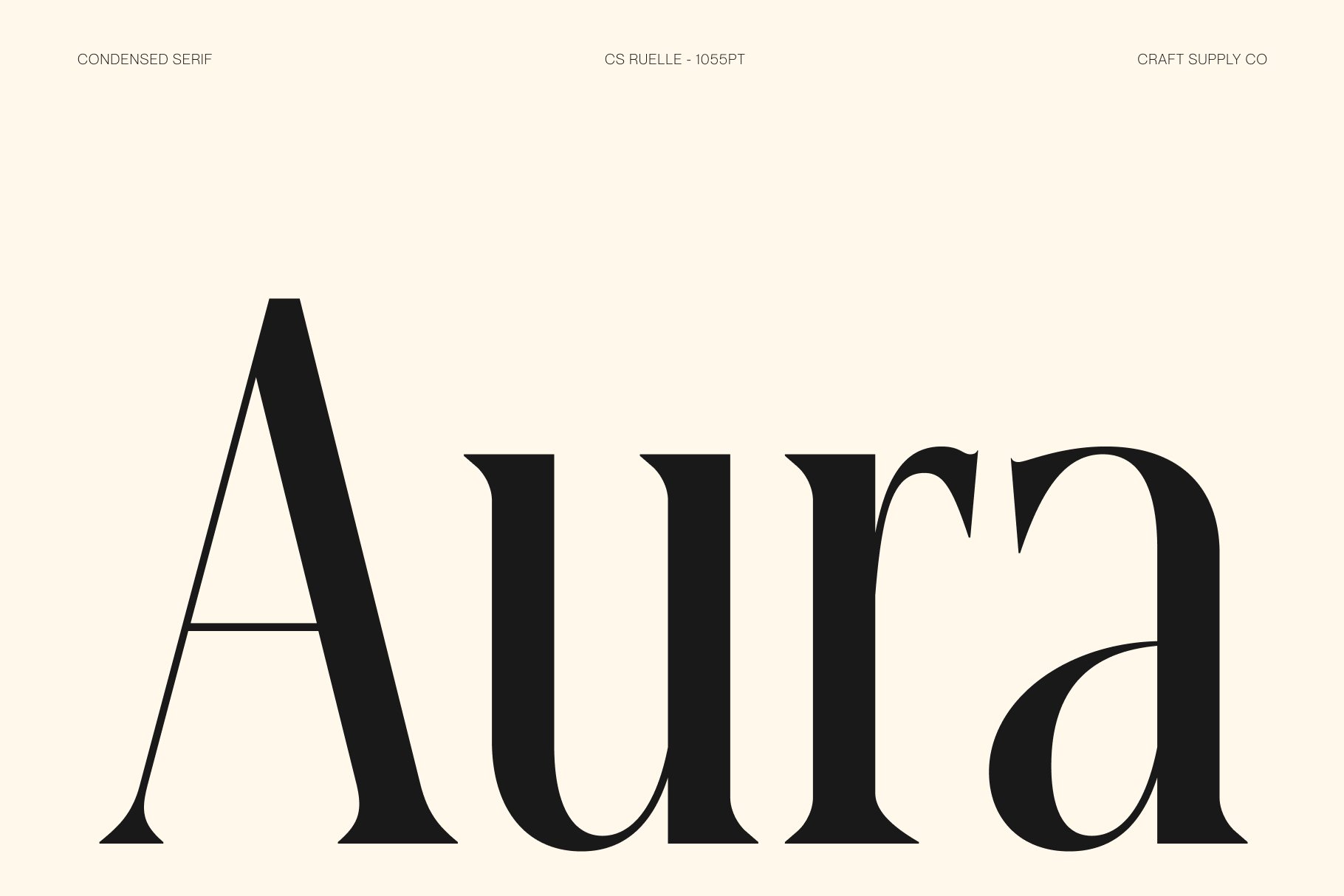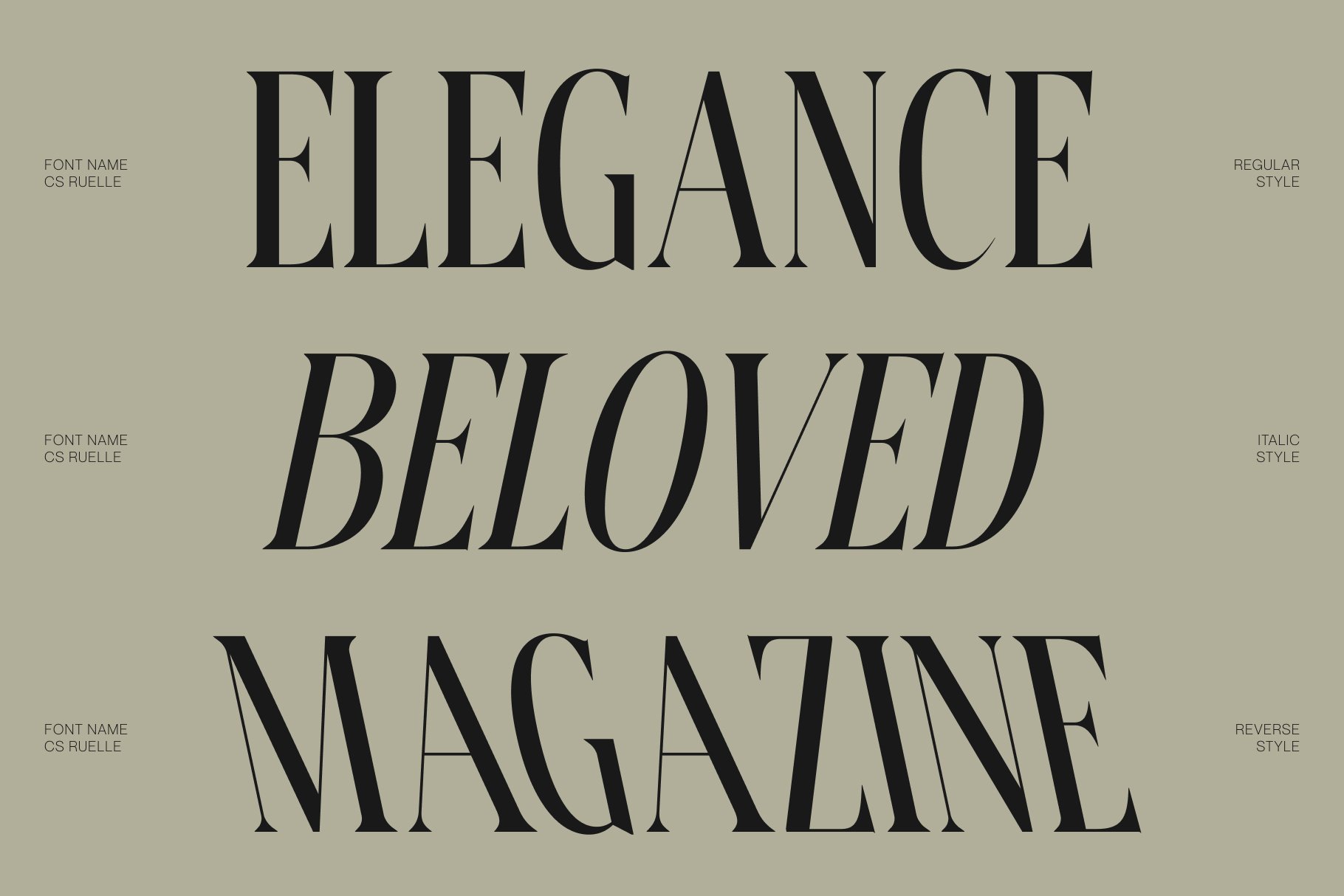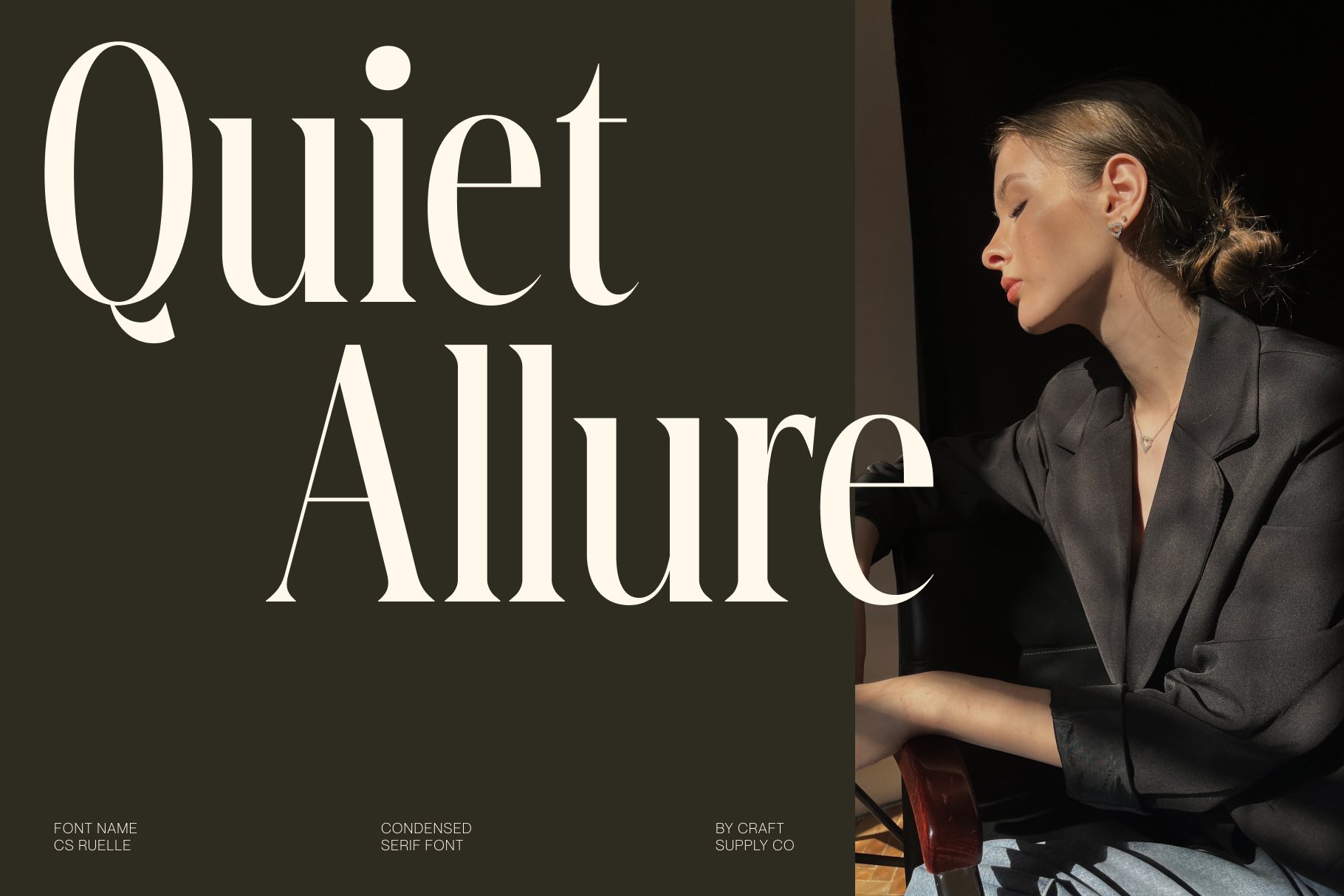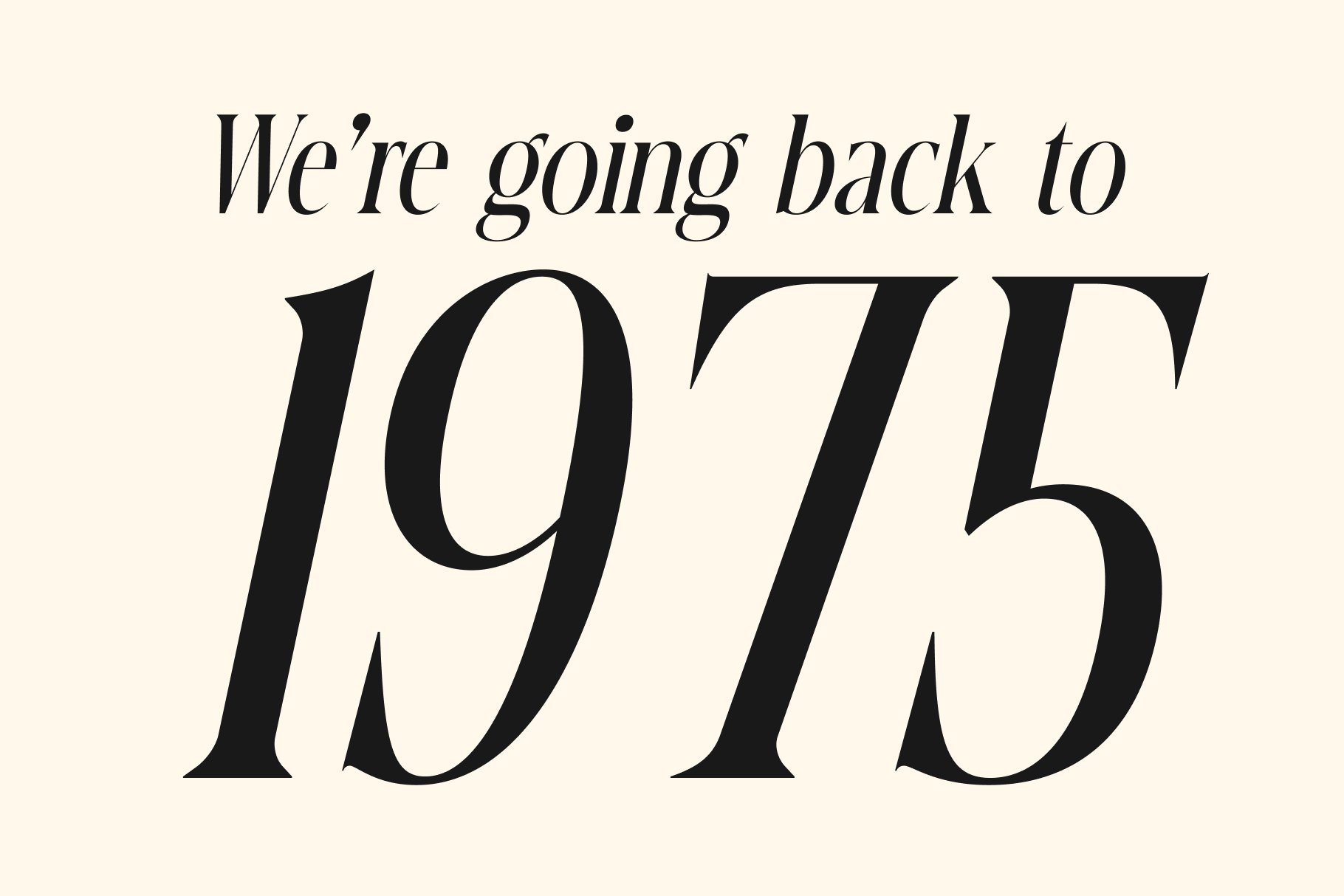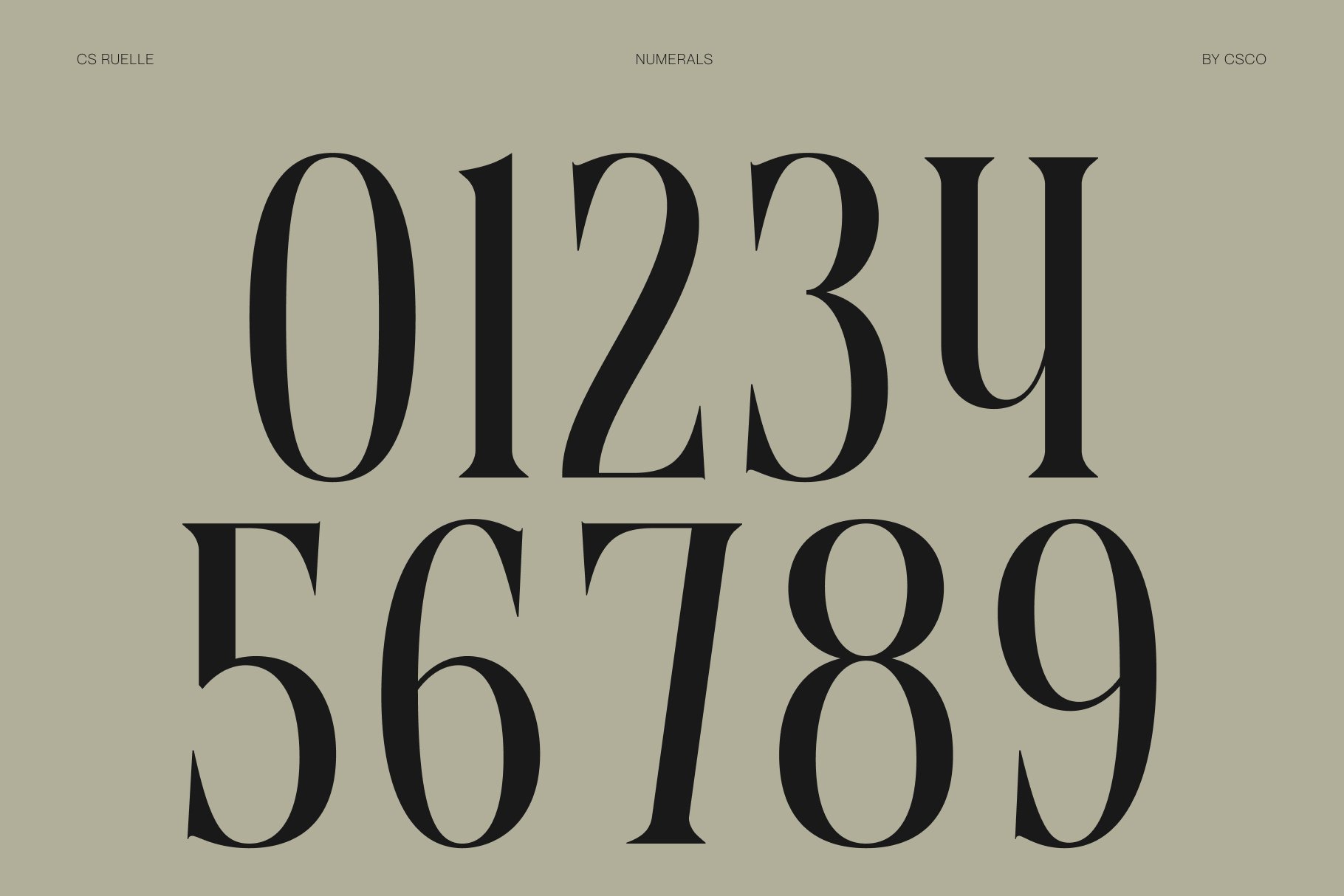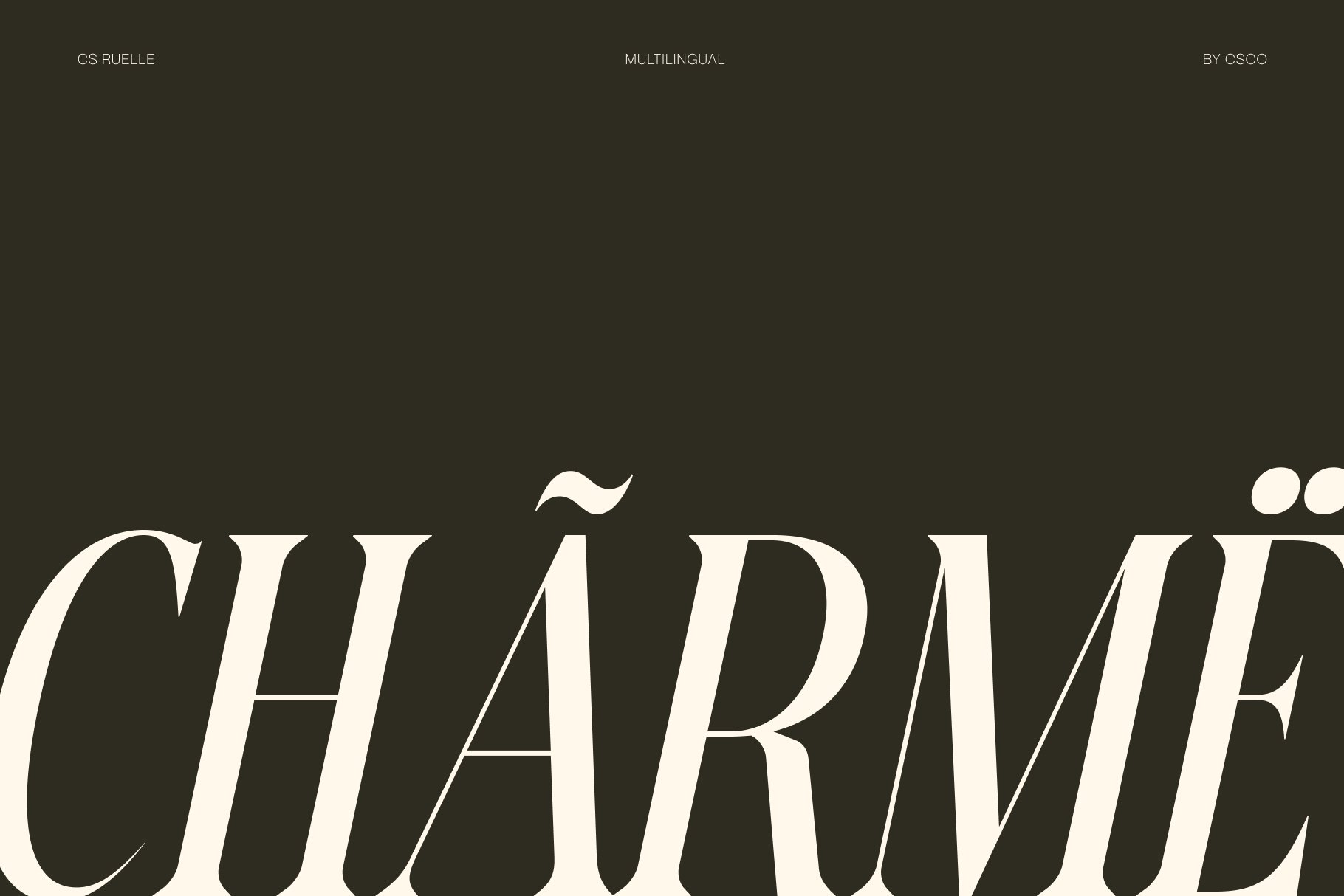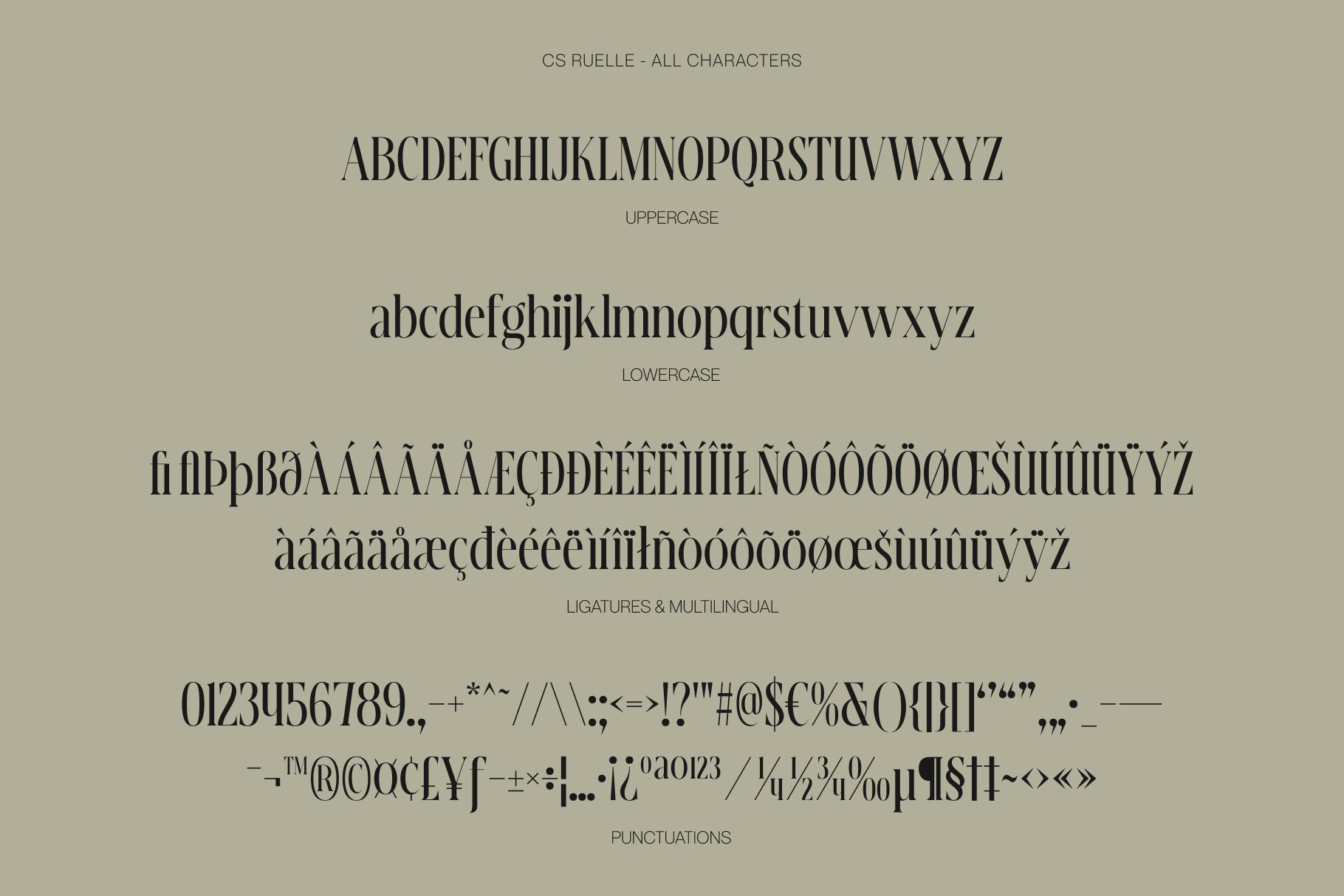
CS Ruelle – Condensed Serif Display Font: Where Timeless Elegance Meets Contemporary Luxury
Tall Letterforms with Refined Proportions
This is a condensed serif display font featuring elegant proportions, refined serifs, and a sophisticated contemporary style. Its tall, graceful letterforms create a striking vertical rhythm that conveys luxury and confidence while maximizing visual impact in space-conscious layouts. The balanced construction ensures every headline feels polished, stylish, and effortlessly refined.
Luxurious Design with Contemporary Elegance
Blending classic serif traditions with modern refinement, its offers a timeless aesthetic enhanced by clean lines and delicate serif details. Its harmonious contrast and graceful structure create typography that feels premium without being excessive, making it ideal for sophisticated branding and editorial compositions.
Refined Presence with Lasting Versatility
Designed to communicate elegance and prestige, this font maintains exceptional readability while elevating every design with its luxurious character. Its condensed form allows for bold, impactful headlines while preserving a graceful and balanced appearance across a wide range of creative applications.
Perfect for Luxury Branding and Editorial Design
Perfect for luxury branding, fashion editorials, magazine covers, cosmetic packaging, invitations, premium logos, beauty campaigns, jewelry branding, hotel identities, restaurant menus, book covers, and high-end visual identities. Its fusion of condensed serif construction, refined proportions, and contemporary elegance makes it ideal for projects that communicate sophistication, exclusivity, and timeless style.